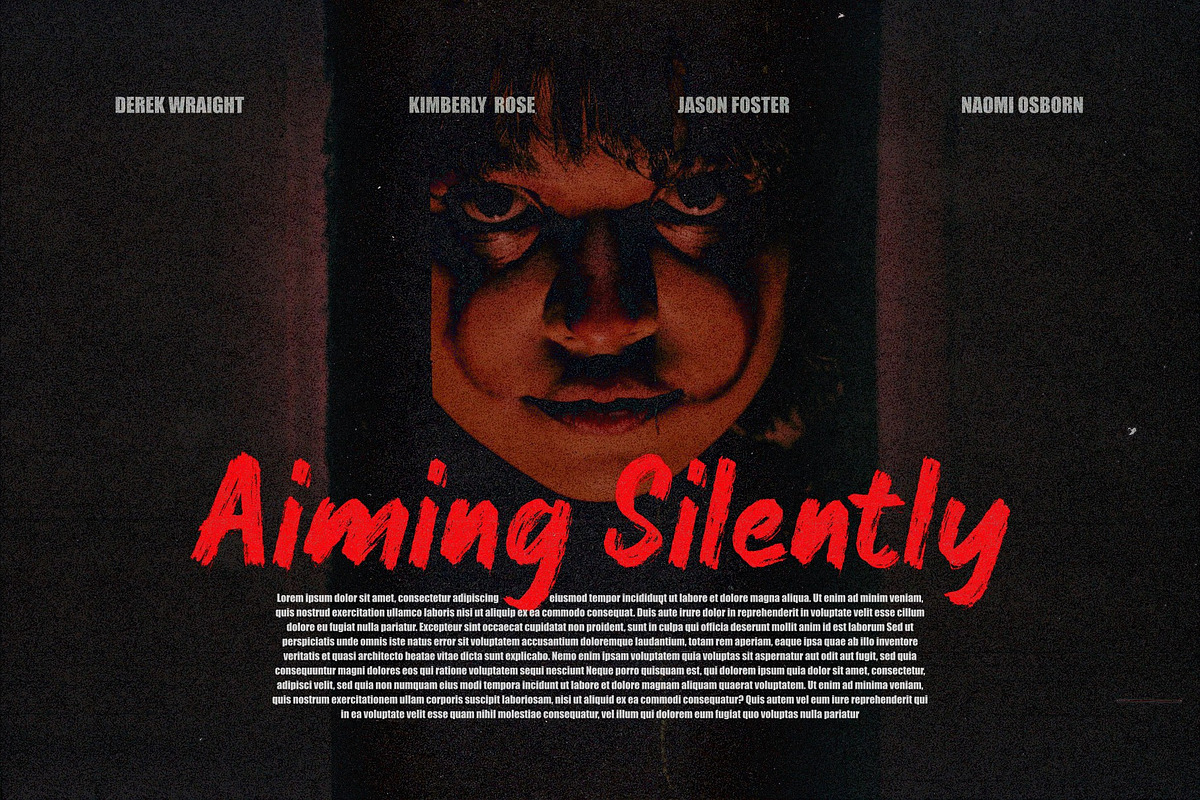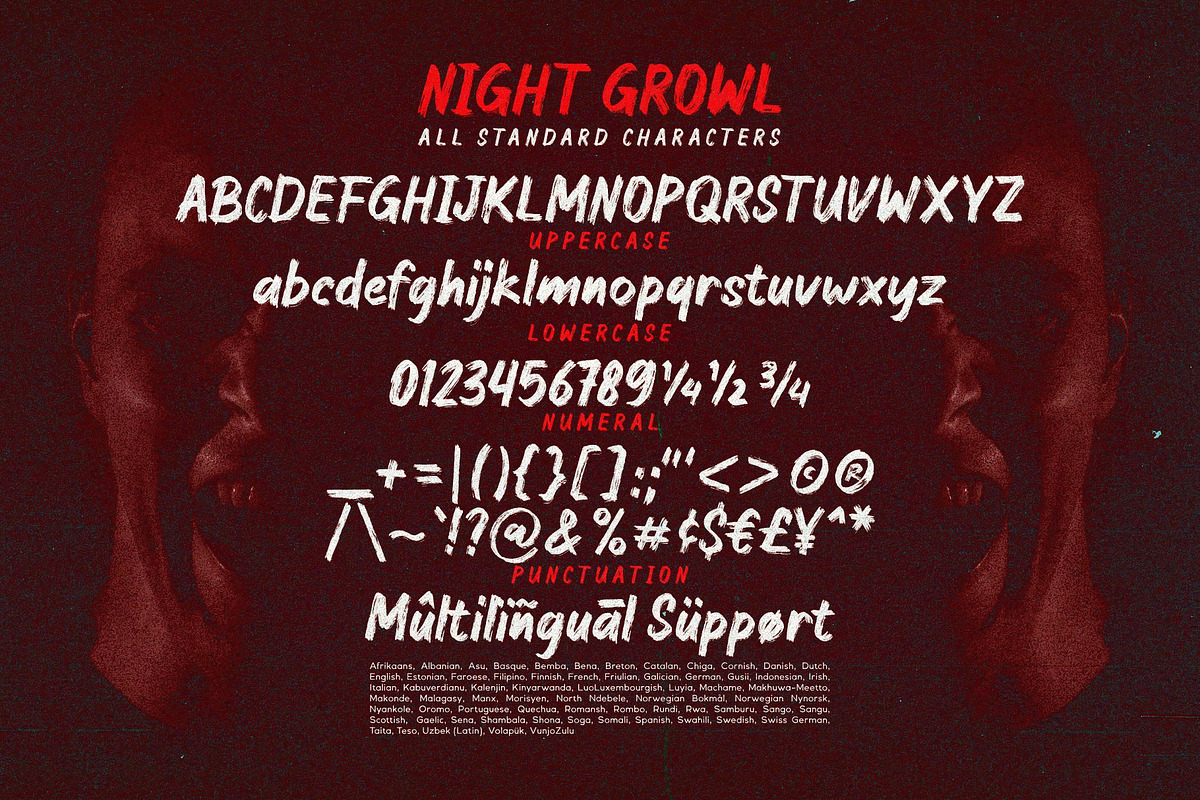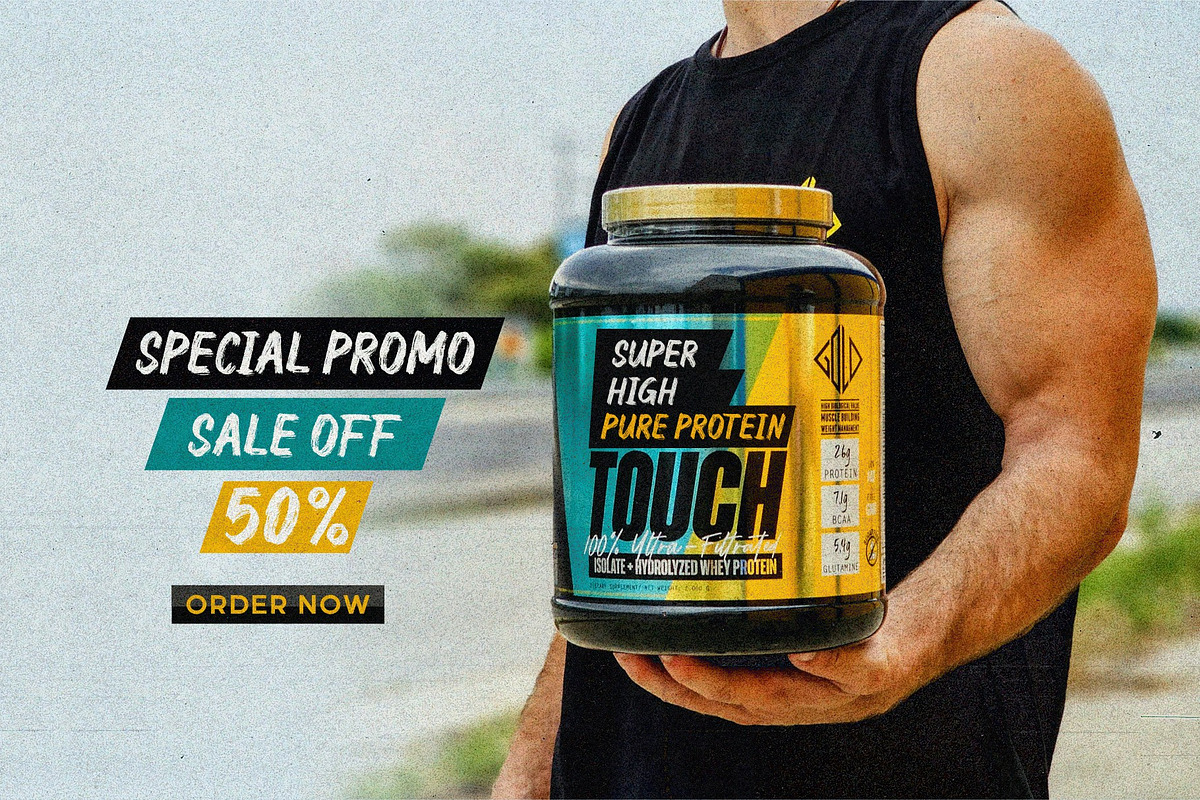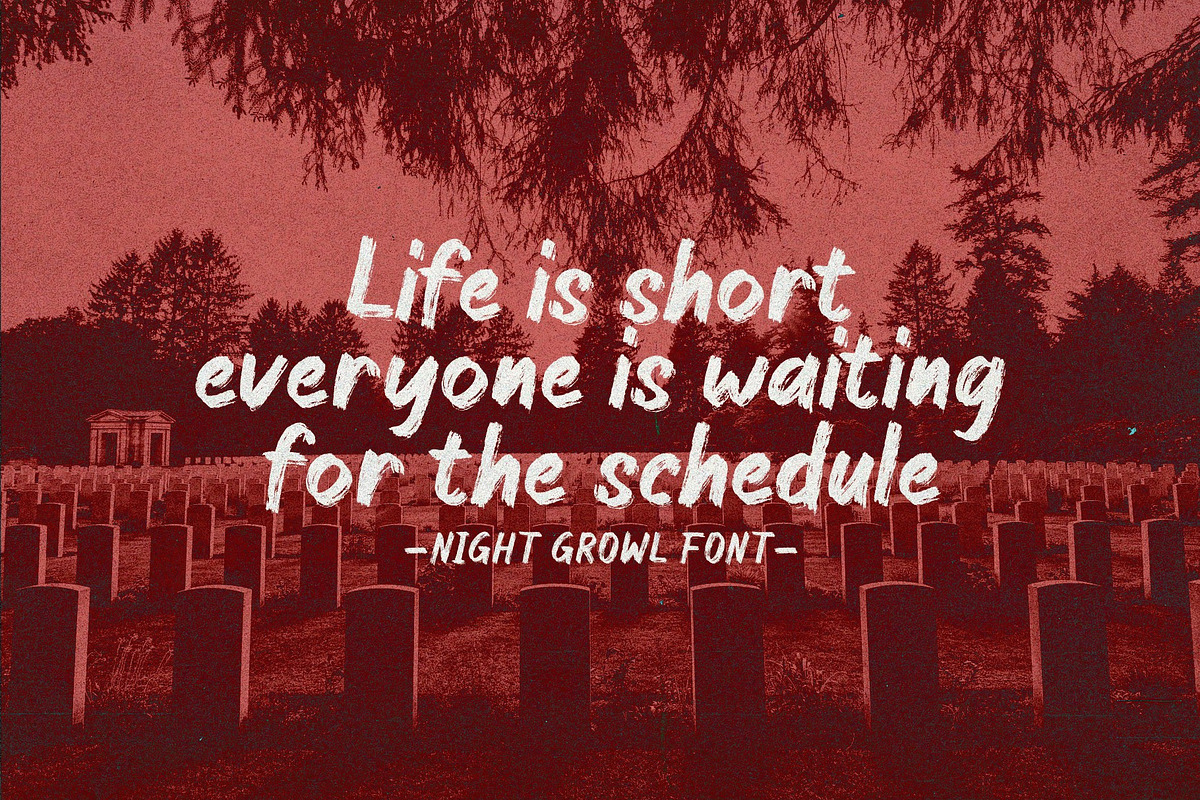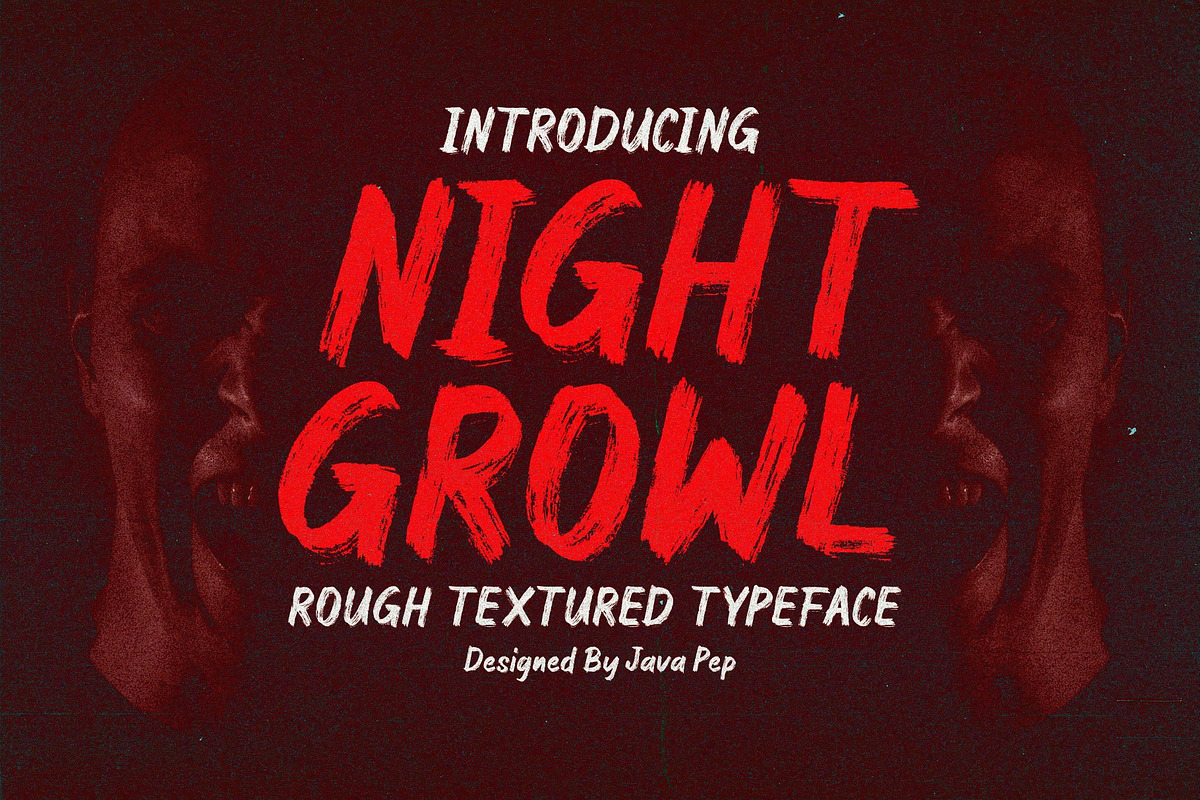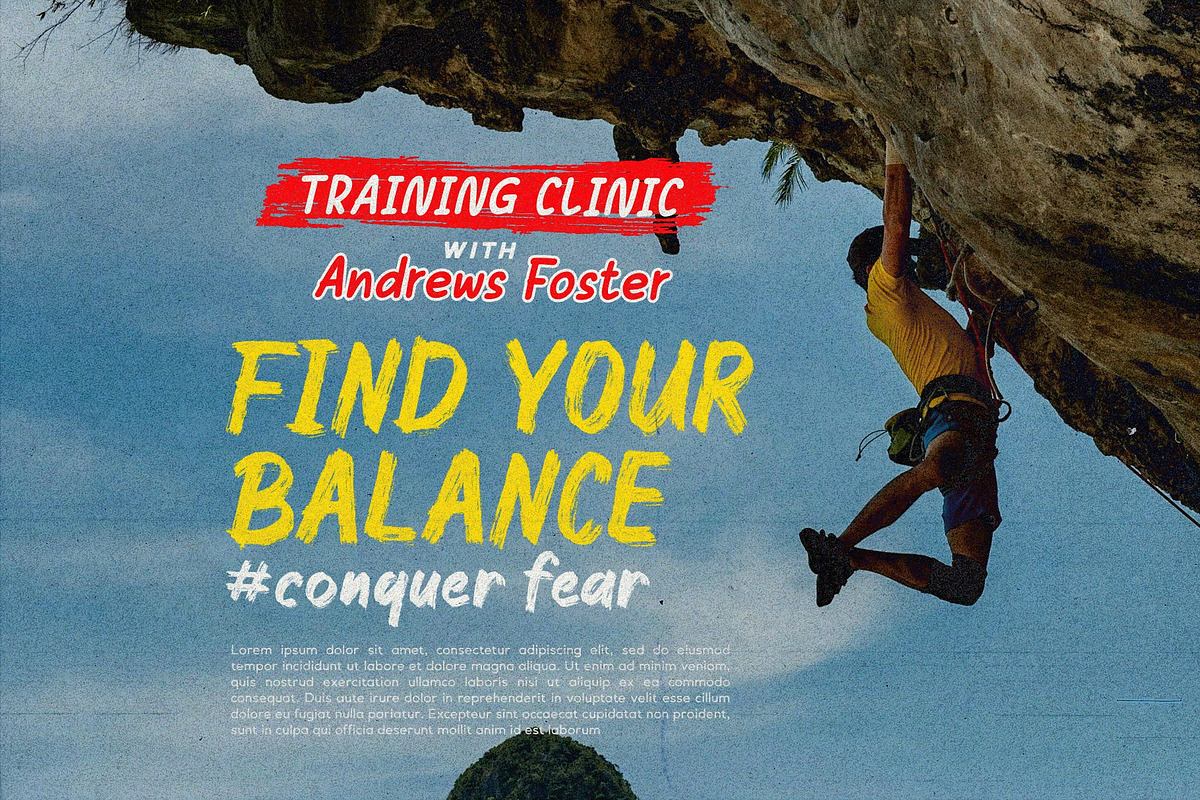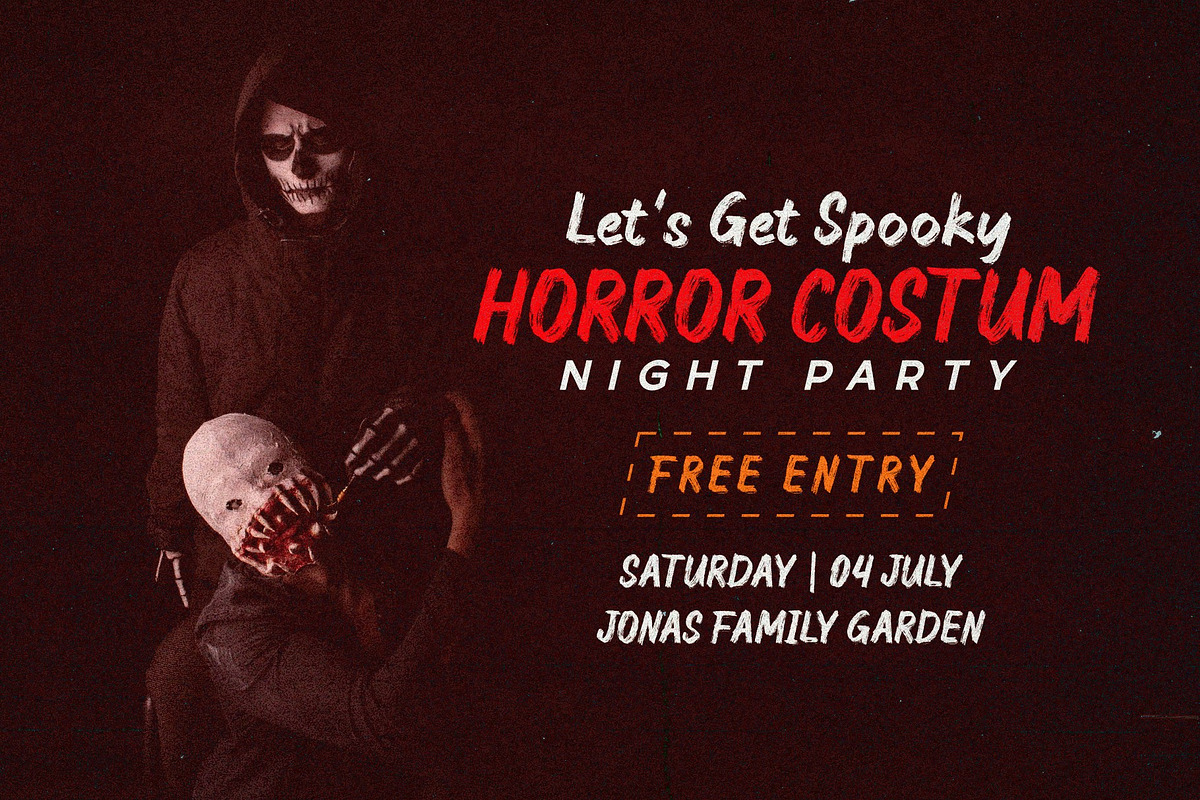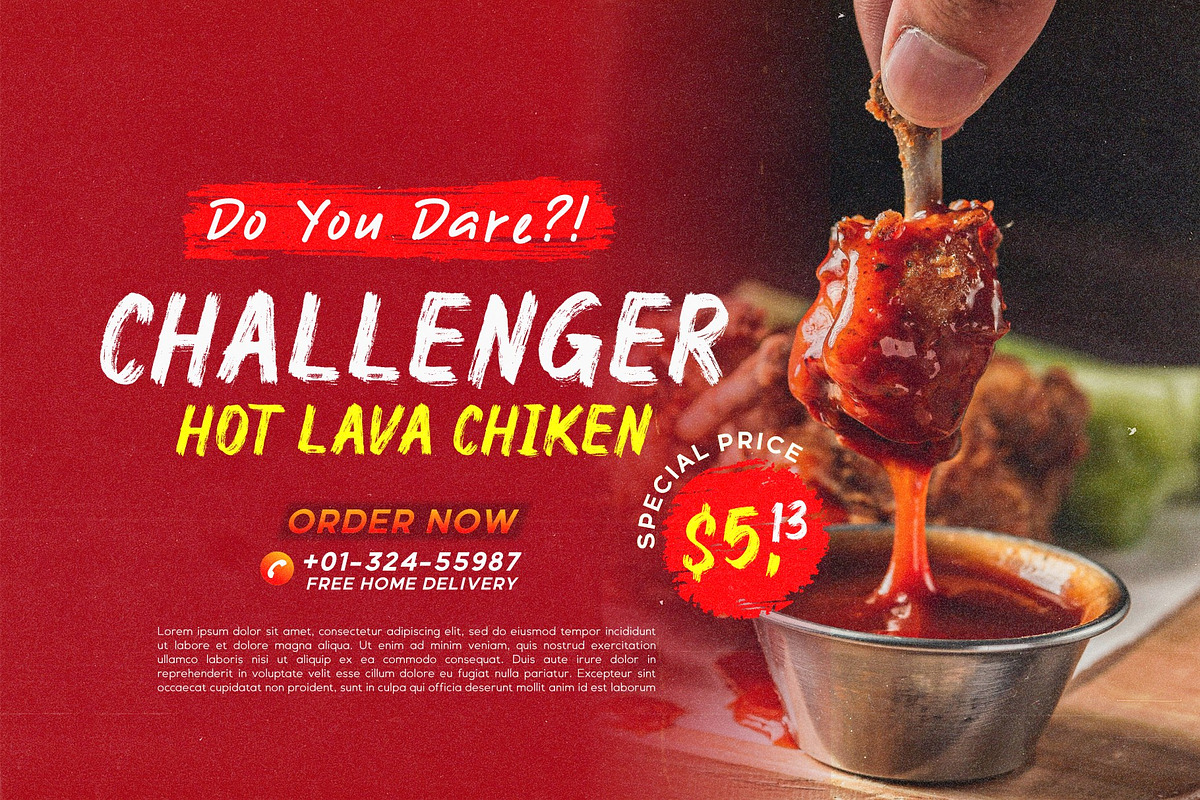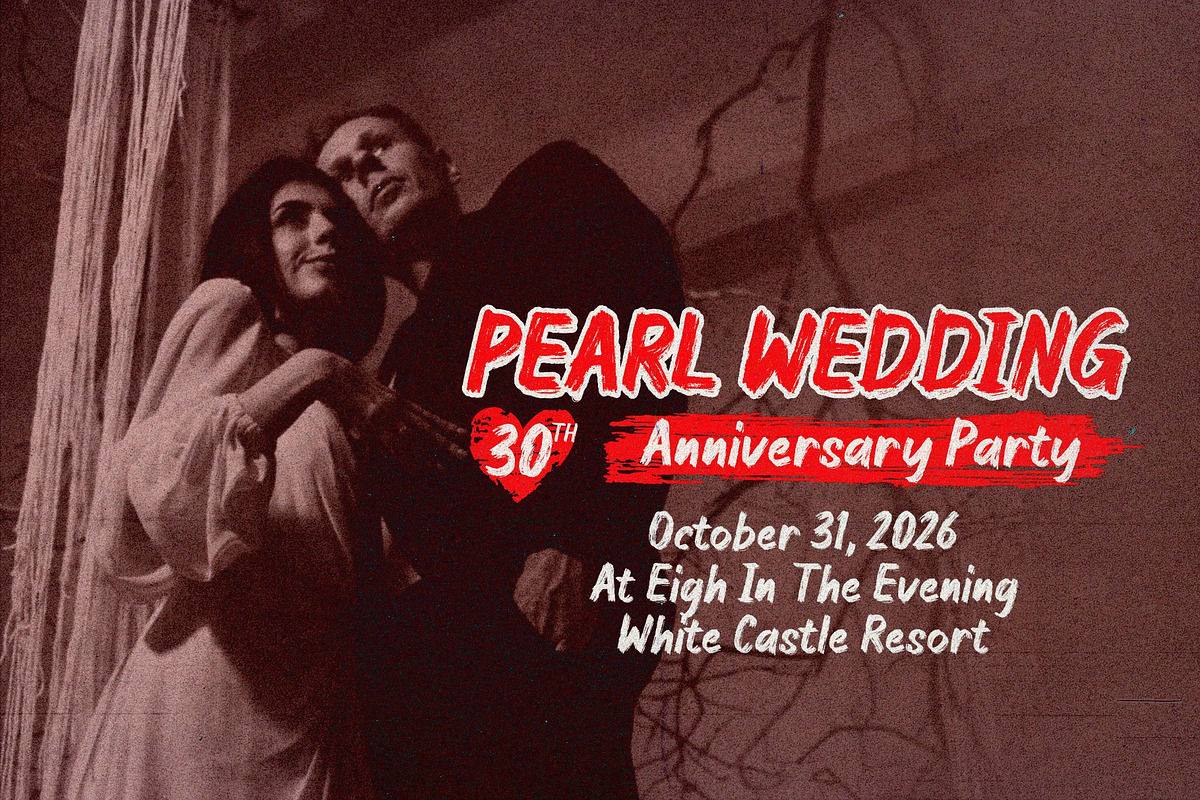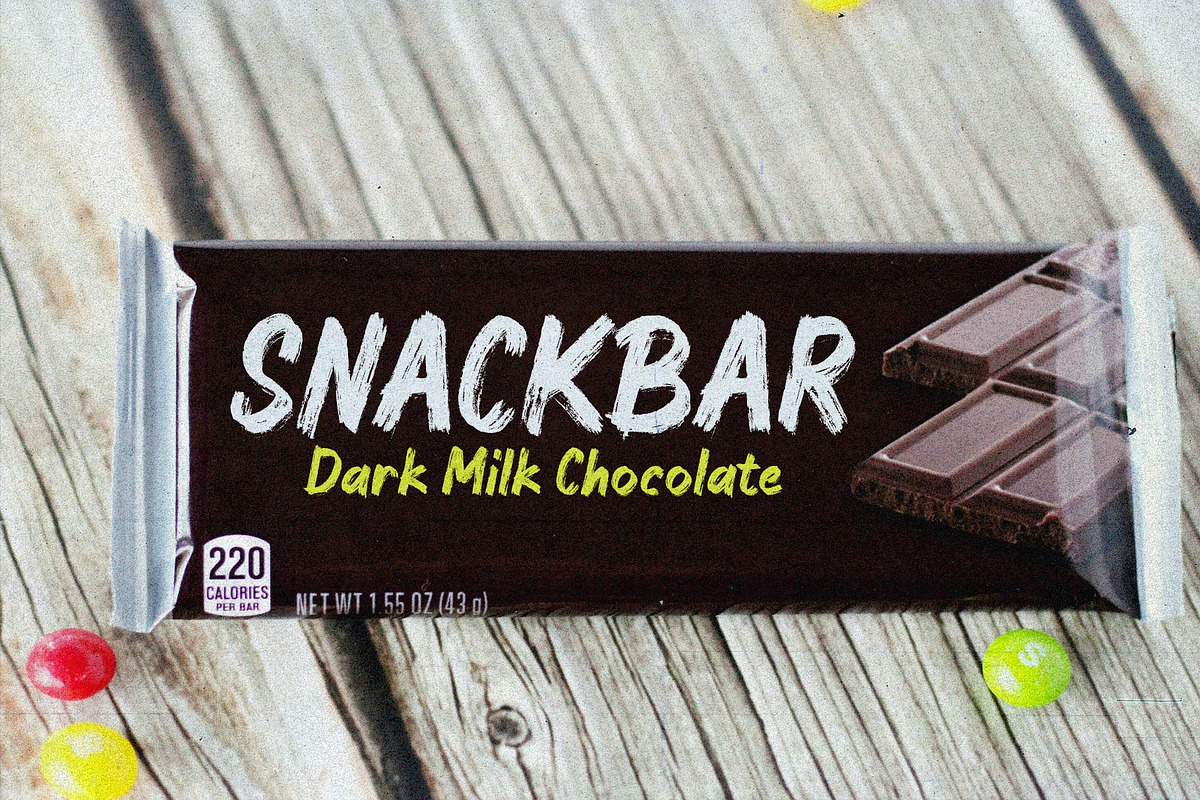
Night Growl / Rough Textured Font
Proudly present a rough-textured typeface called Night Growl font. This font is inspired by handwriting with a dry oiled brush, and we are trying to keep the rough texture in every glyph, so it has a lot of vibes and purposes, such as bold, fun, creepy & spooky, gothic, masculine, and sporty. Night Growl font is perfect for branding, logotypes, posters, banners, advertising, short quotes, headlines, titles, invitations, etc. Night Growl font supports more than 25 languages and full standard characters, uppercase, lowercase, numerals, and punctuation.